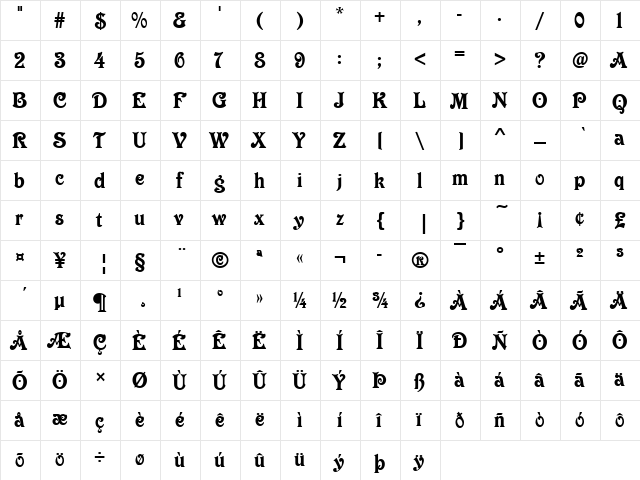
Victorian Alternate D Regular
Design Context for Victorian Alternate D Typeface
Victorian Alternate D is a composed and adaptable typeface that performs quietly and consistently across a wide range of design contexts.